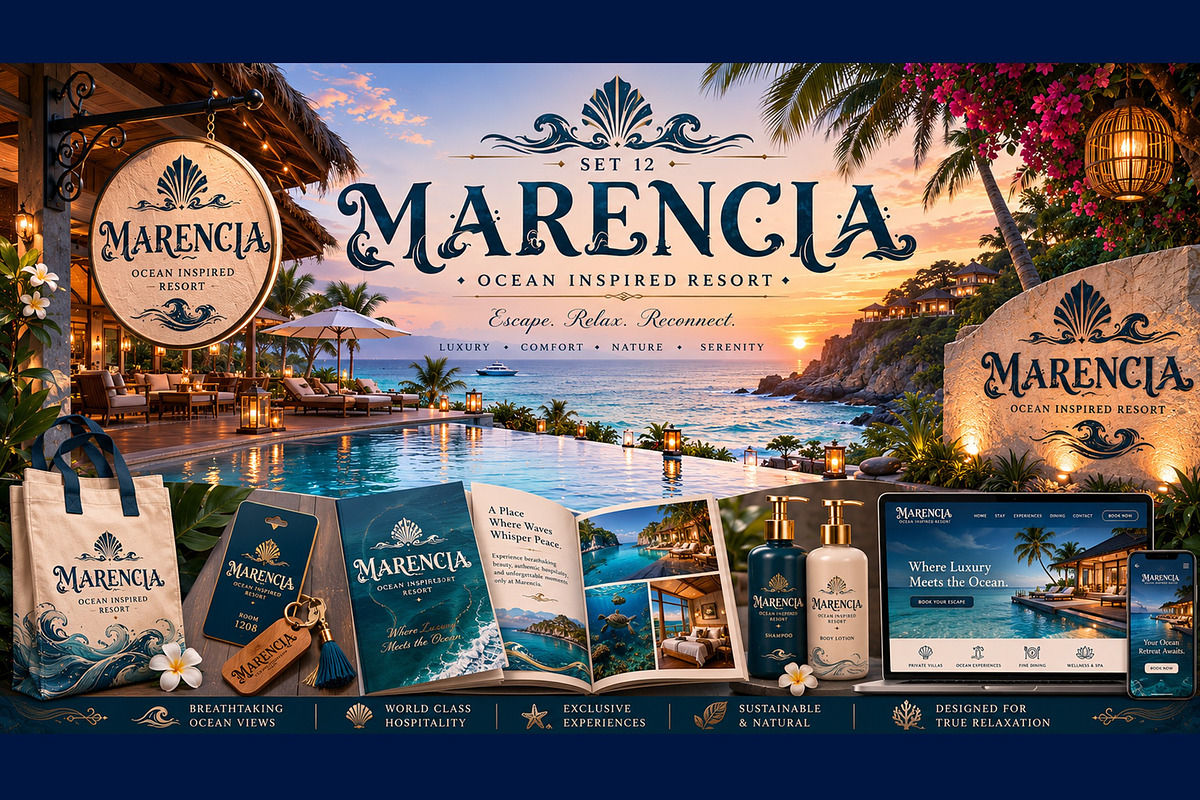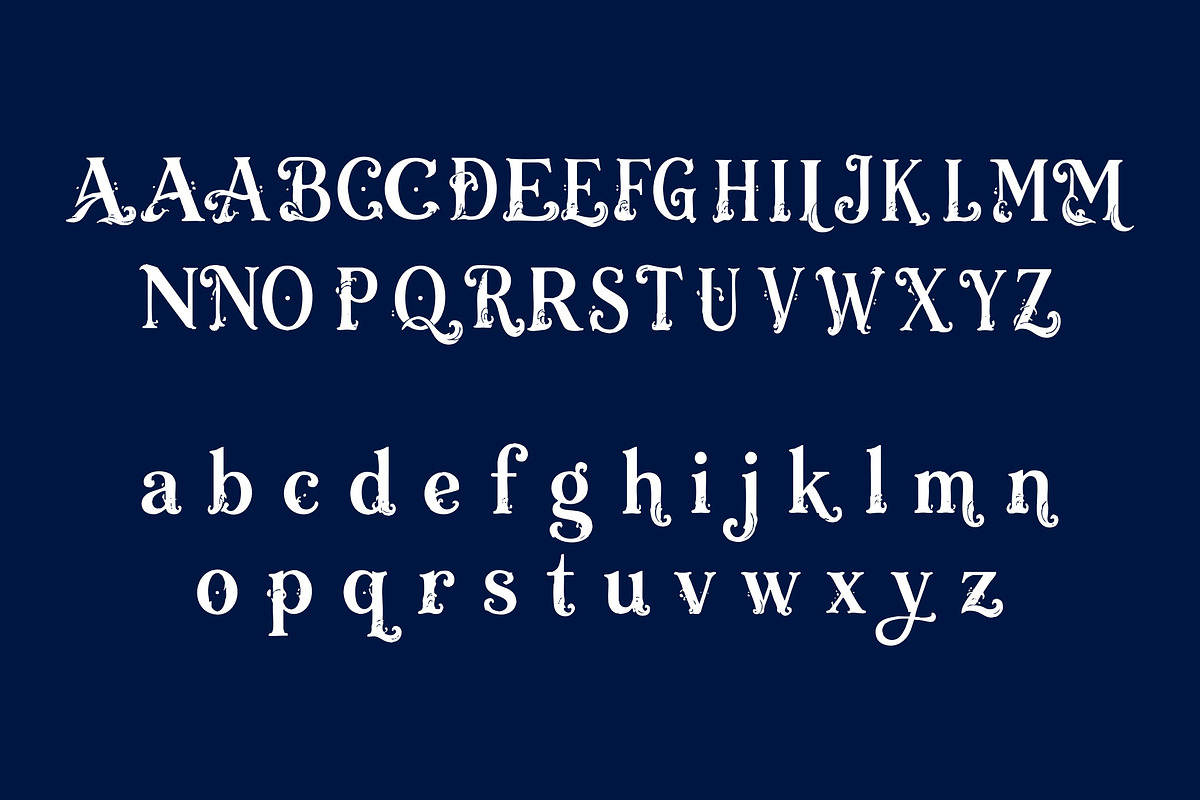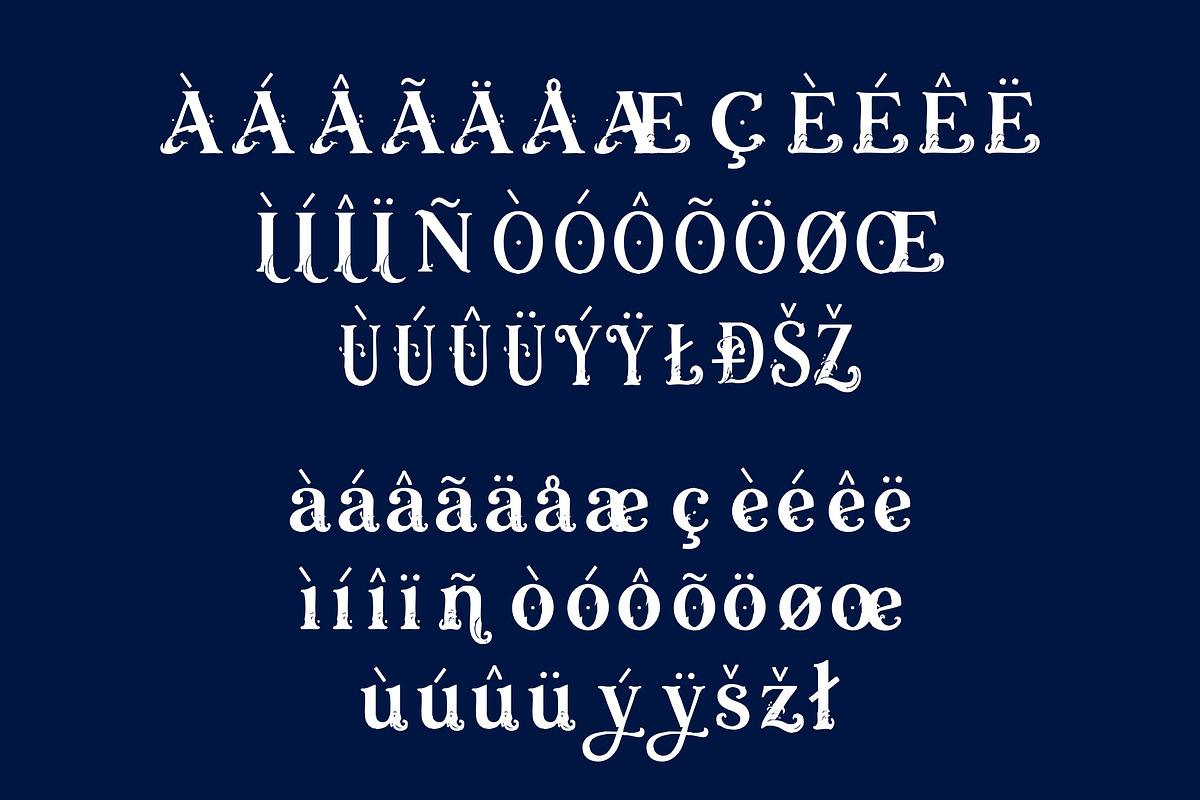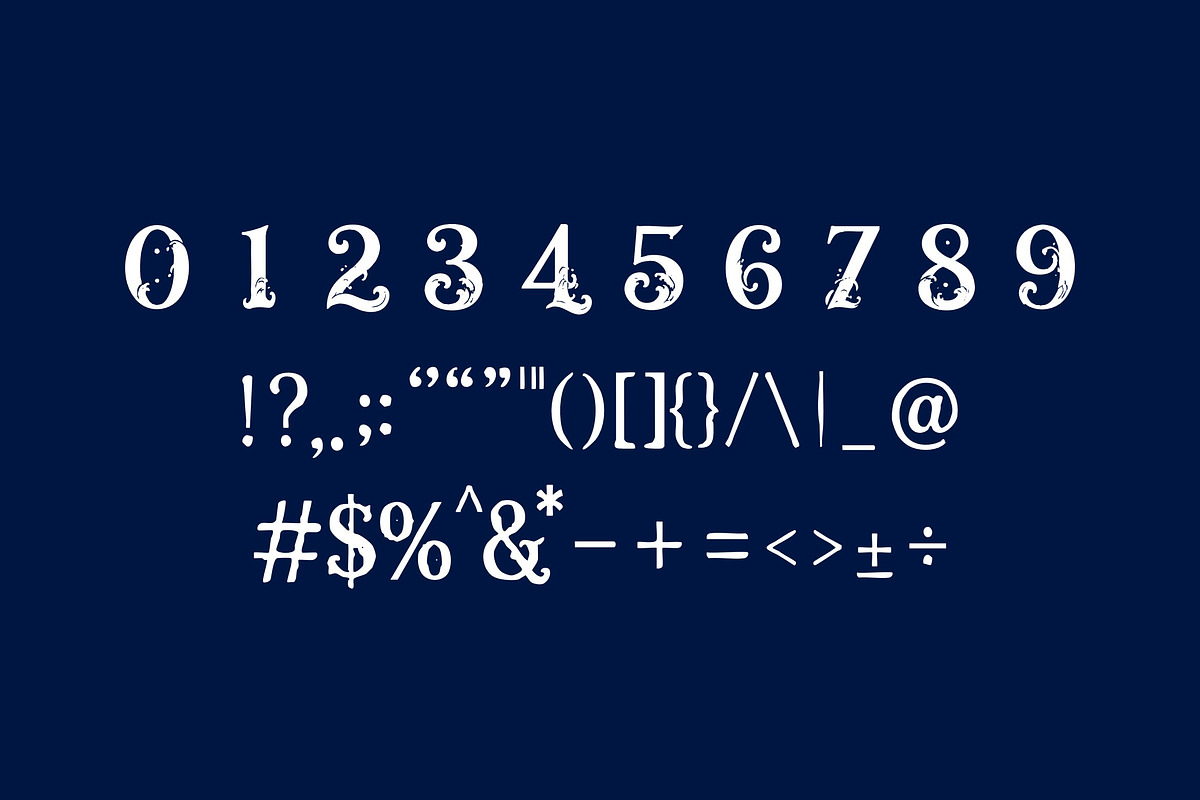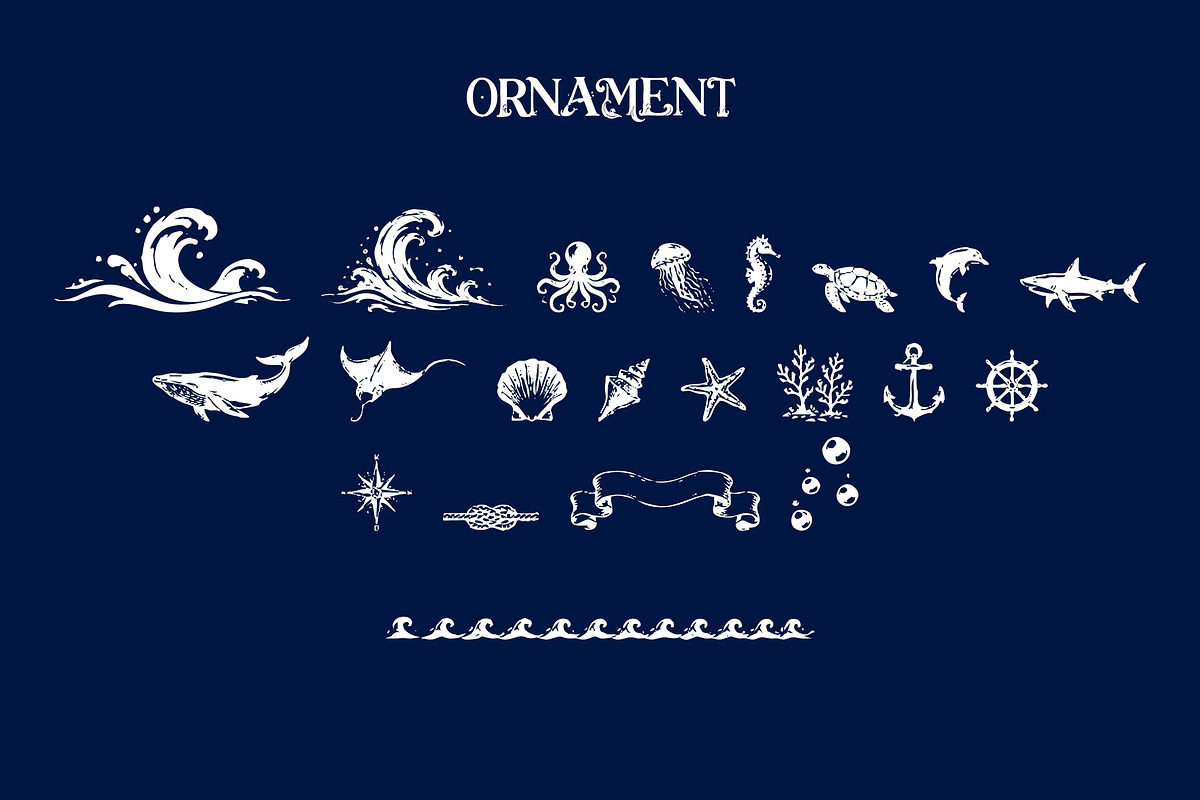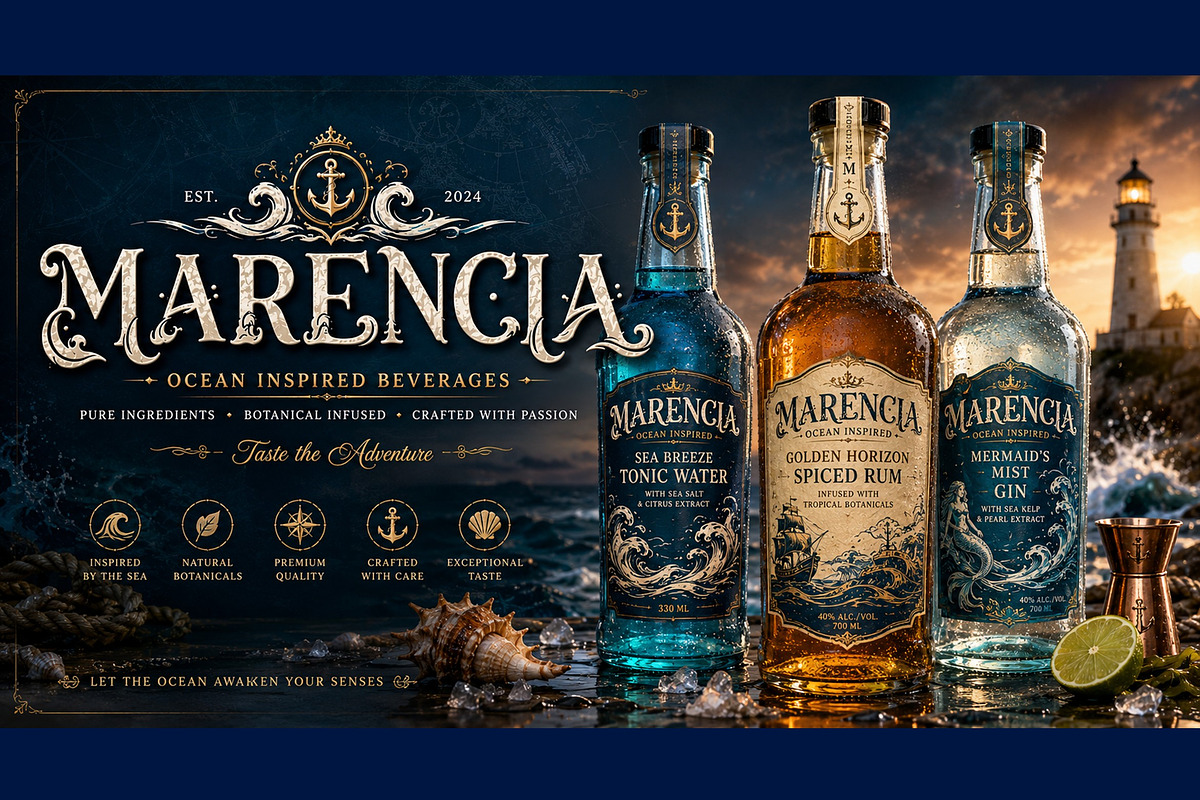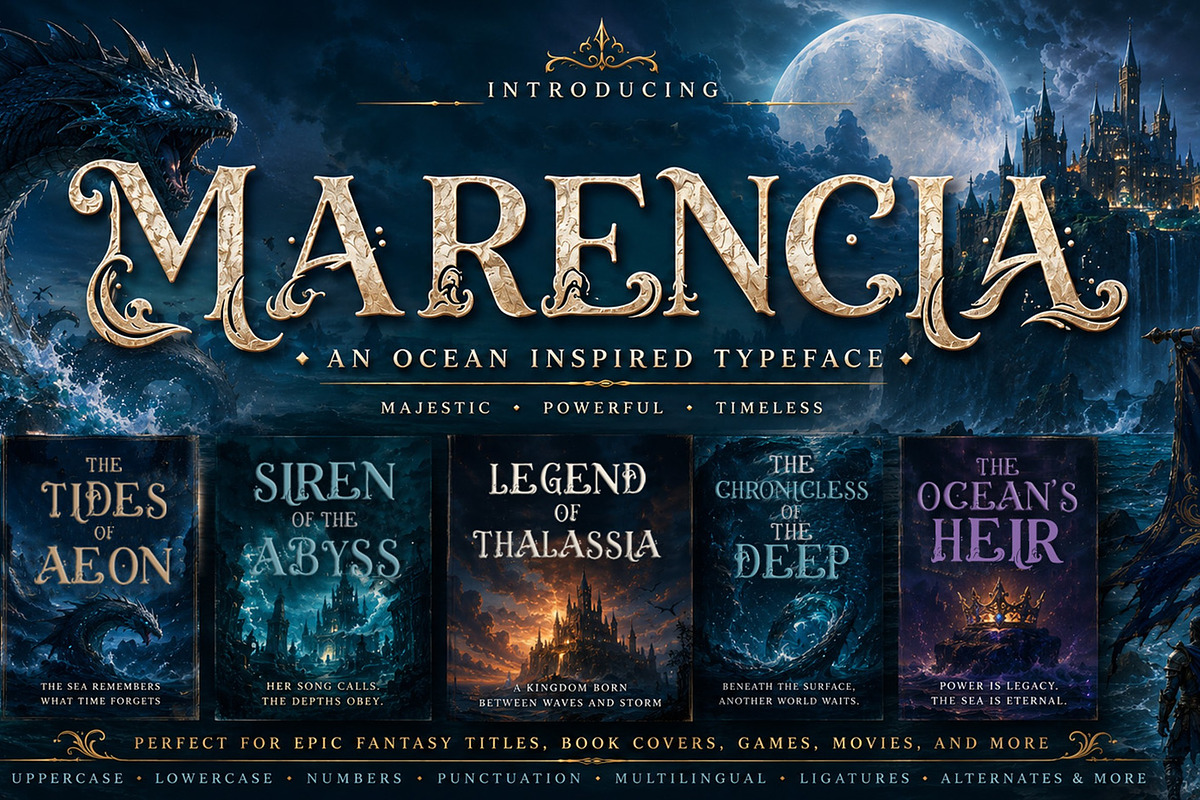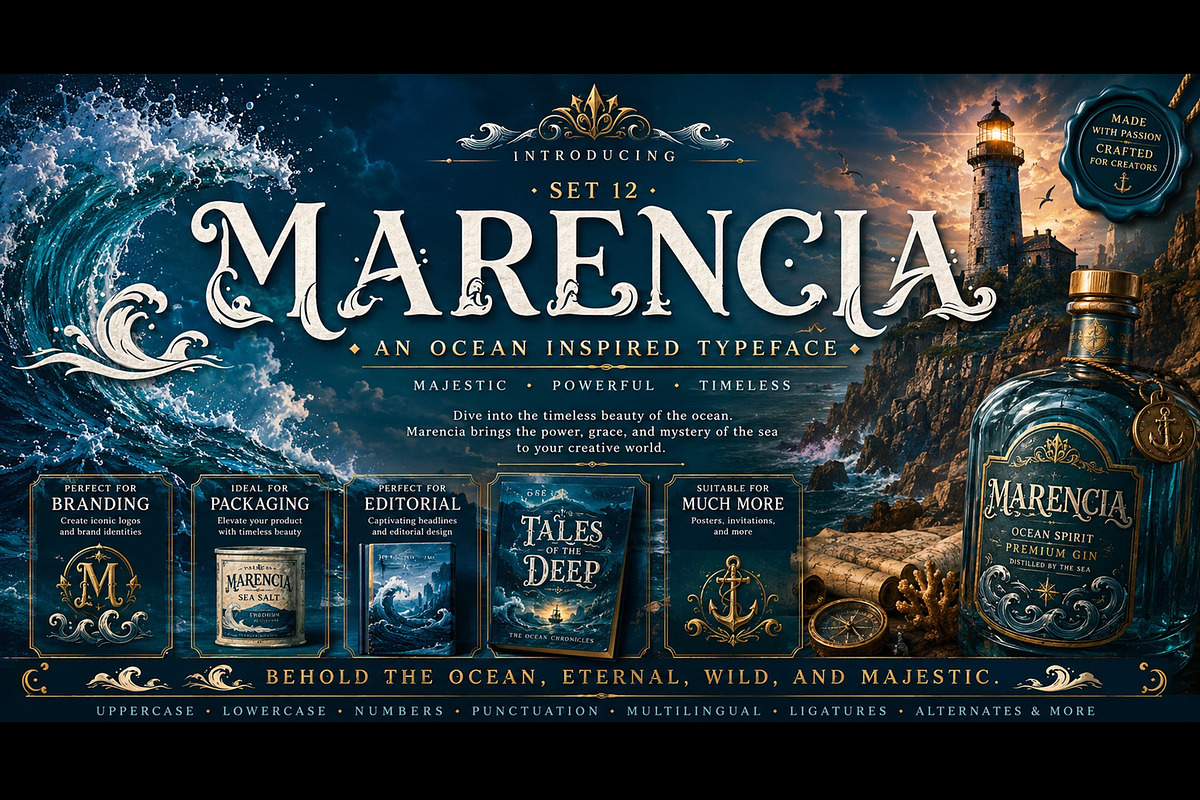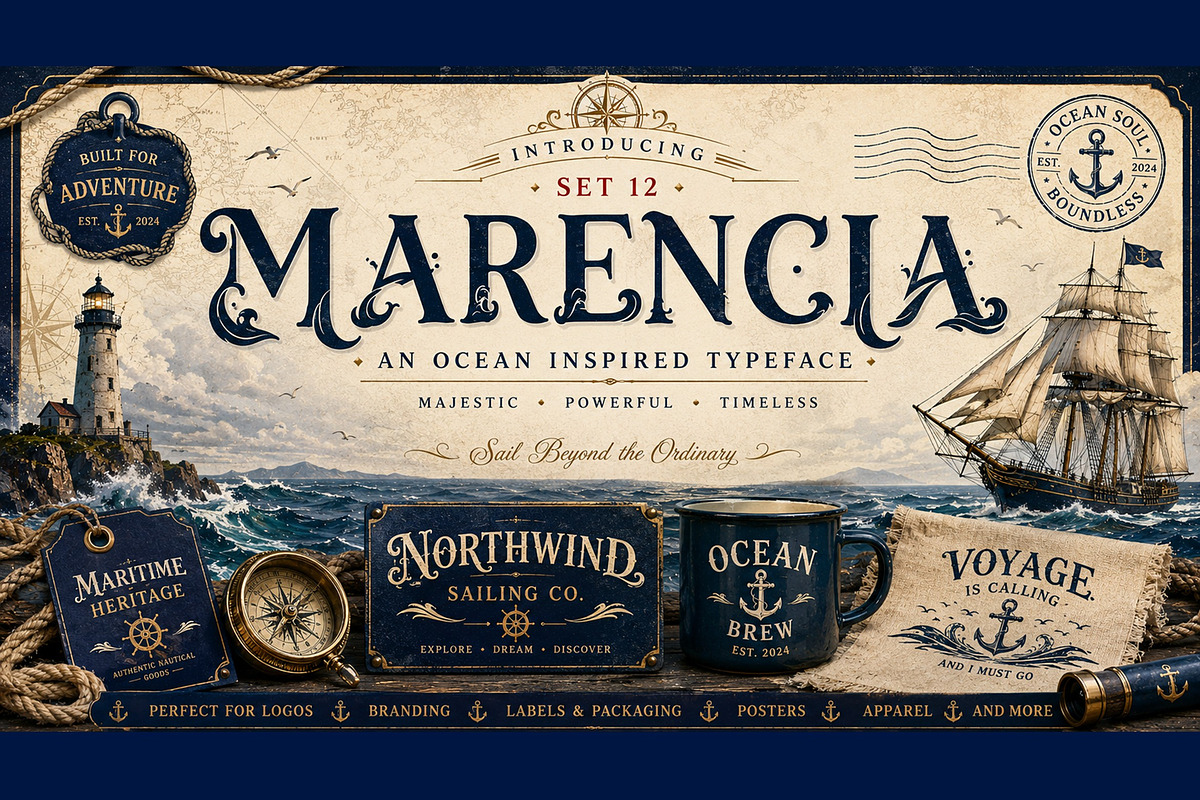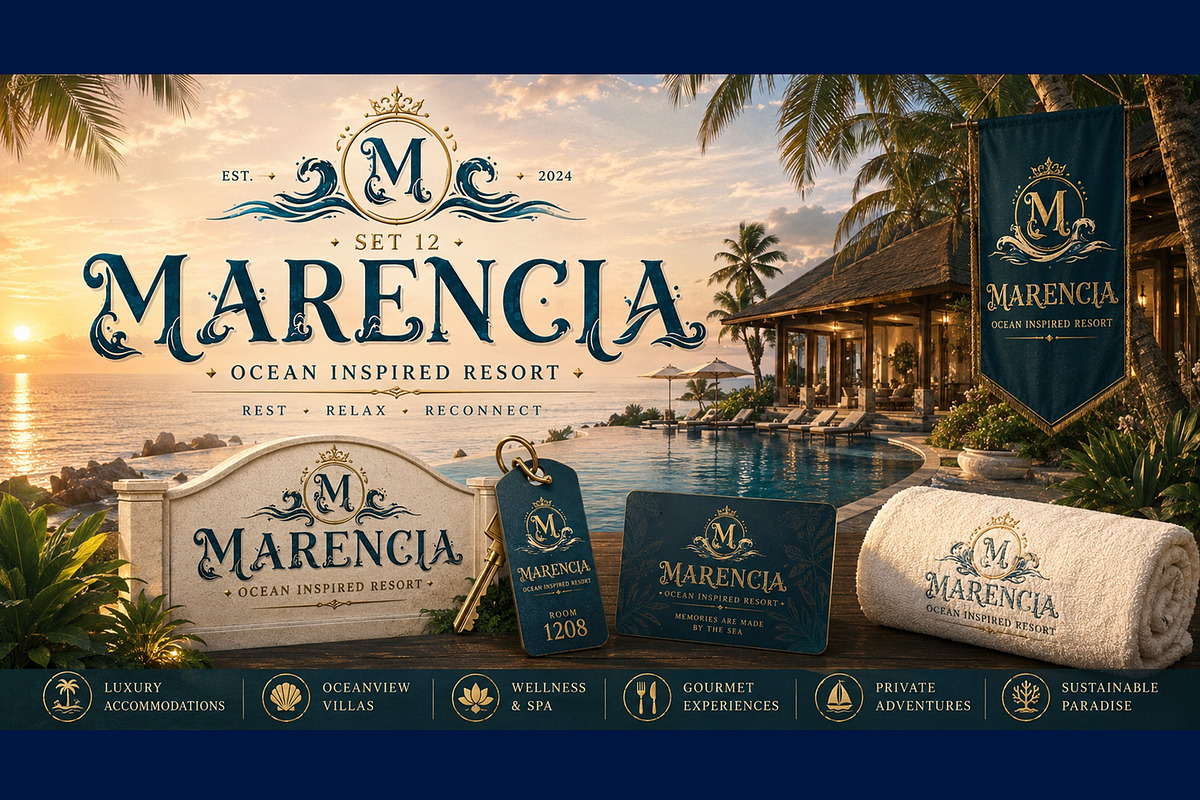
MARENCIA
MARENCIA is a majestic ocean-inspired display typeface that captures the power, movement, and timeless beauty of the sea. Featuring bold serif forms, flowing wave-like terminals, elegant curls, and subtle splash details, MARENCIA combines dramatic character with refined craftsmanship. Perfect for luxury branding, nautical designs, book covers, fantasy titles, resort identities, seafood packaging, beverage labels, posters, editorial projects, and ocean-inspired visual storytelling.
- 223 Glyps included Uppercase, Lowercase, Numeral, Punctuation, Multilingual international Language.